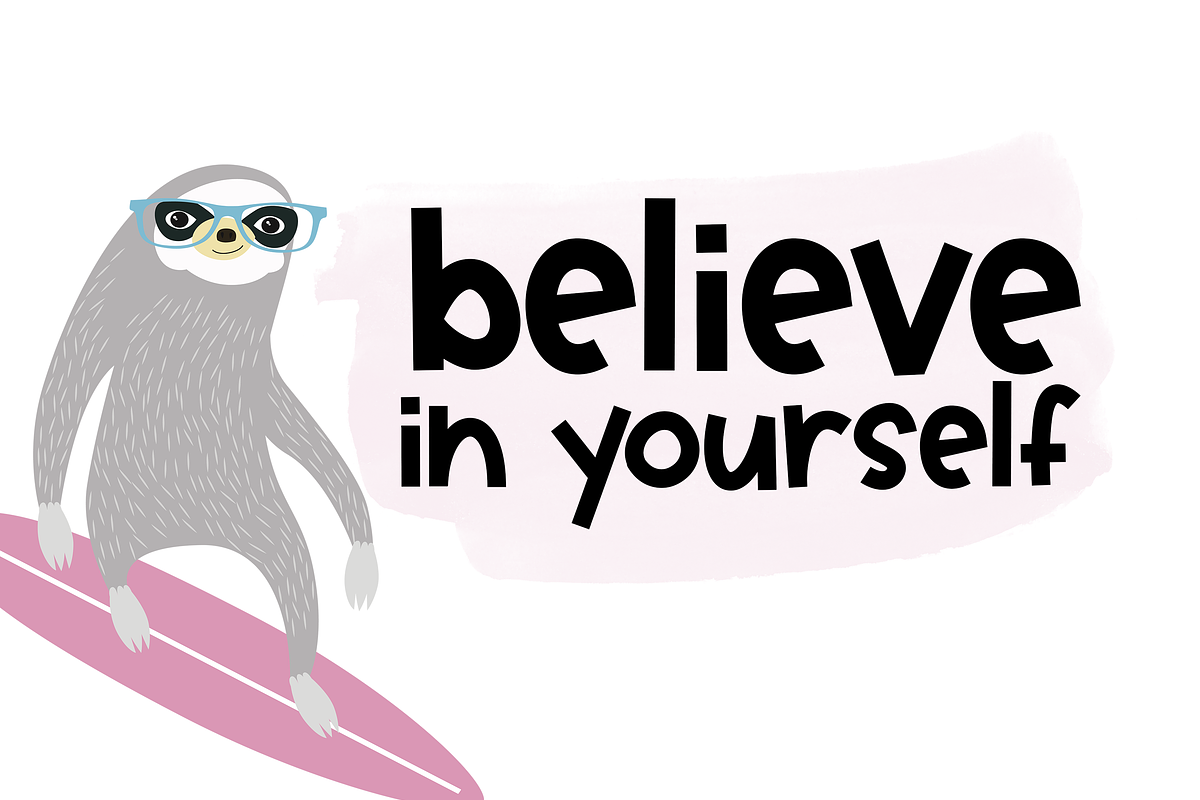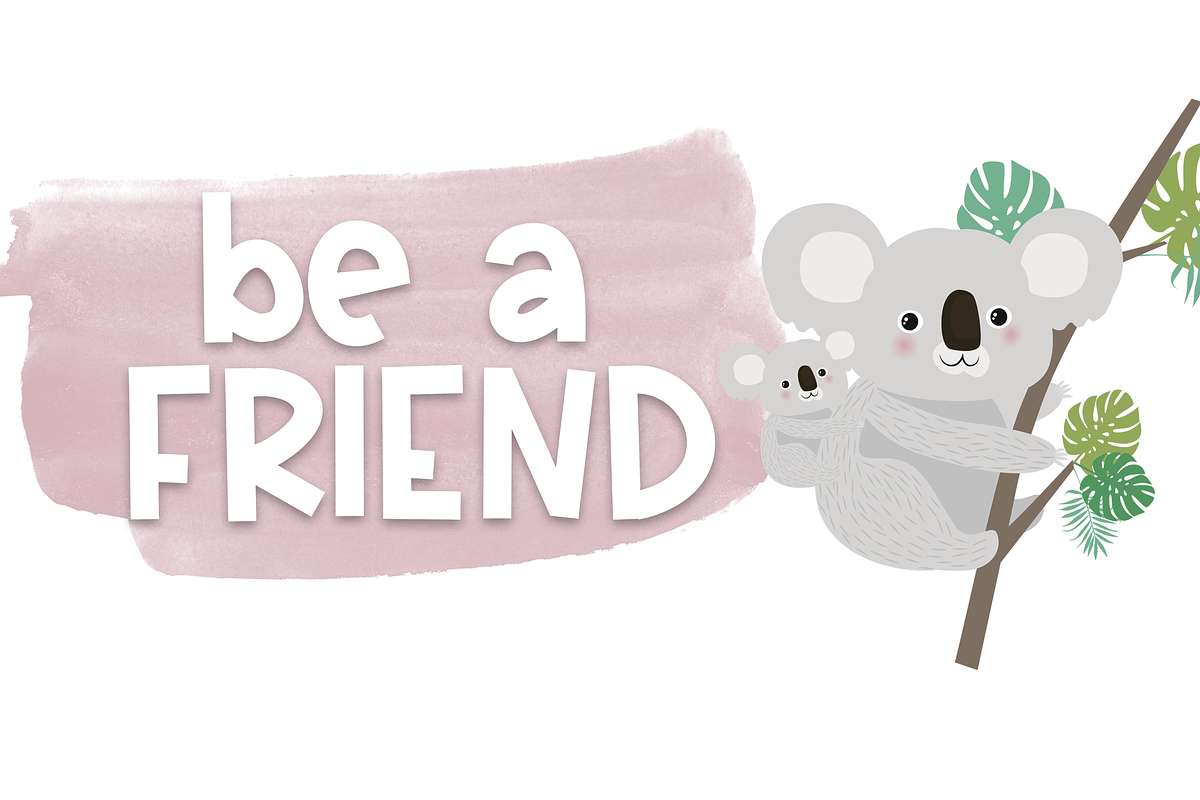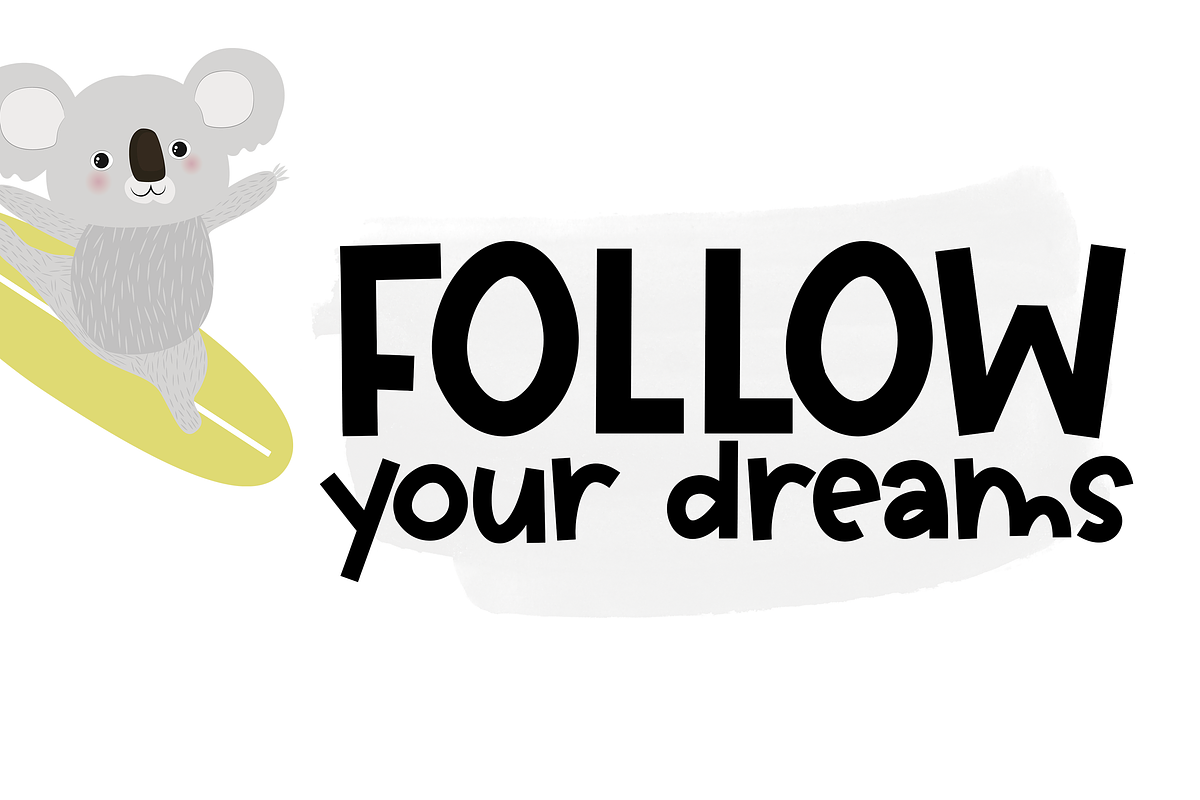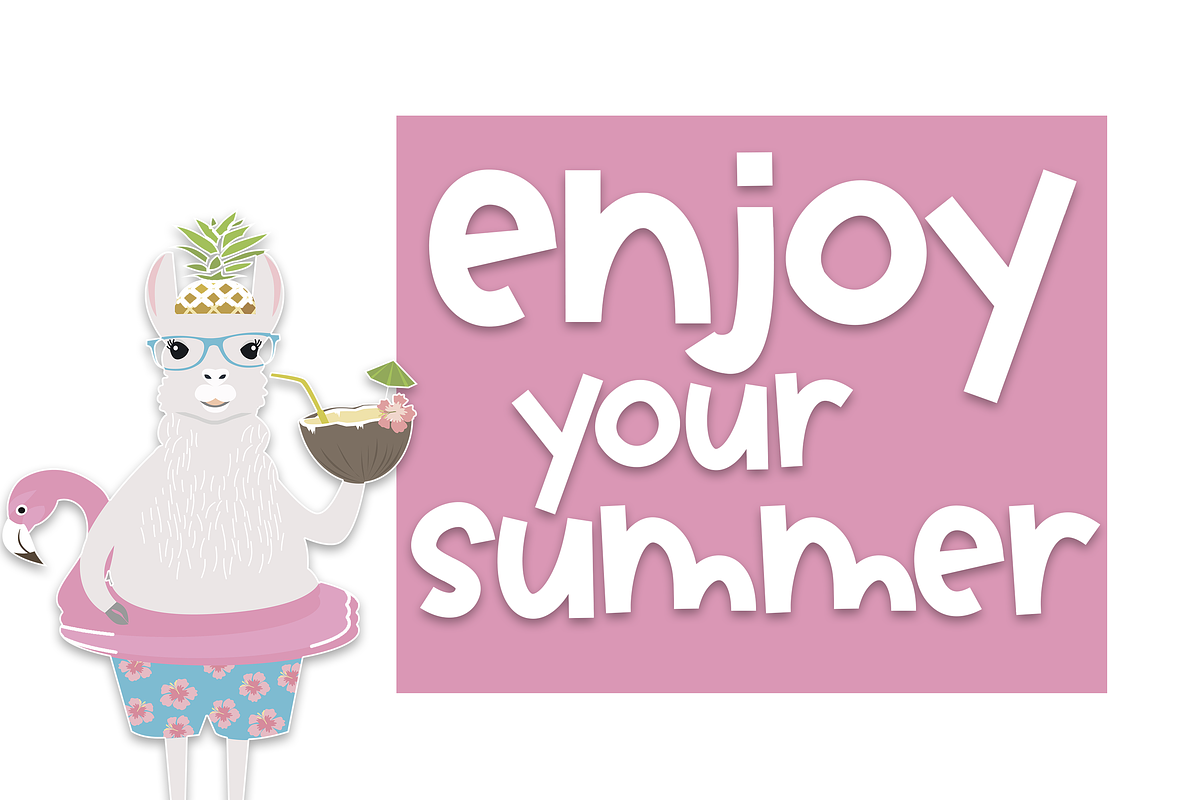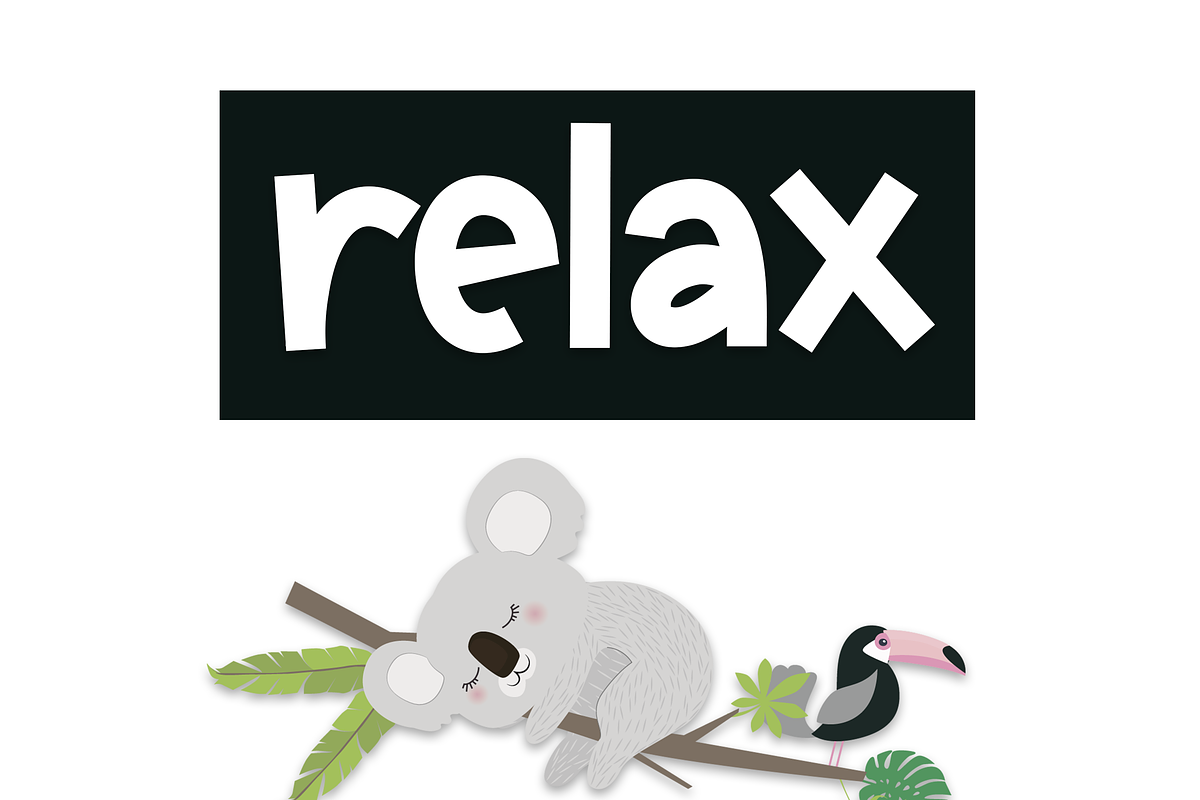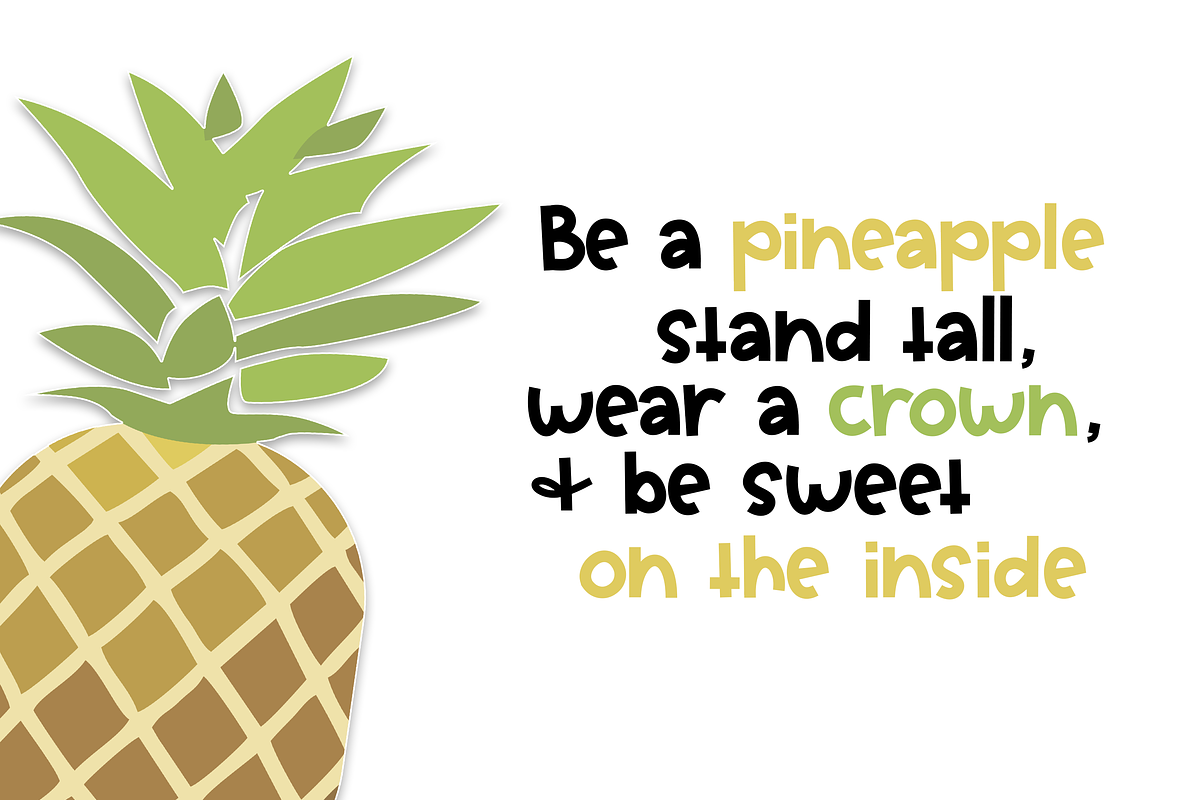
Oatmeal - A Bold Handwritten Font
Oatmeal is a fun handwritten font with bold letters.
This font is perfect for quotes, headings, designs, logos, invitations and more!
Oatmeal - A Bold Handwritten Font by KA Designs fits naturally into Branding, posters, packaging, typography.